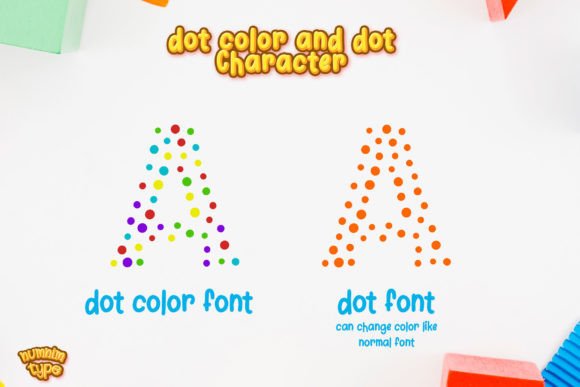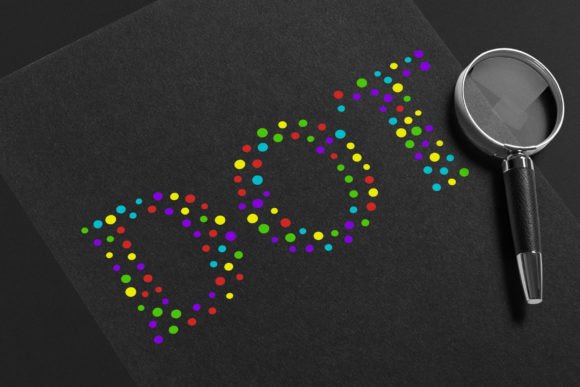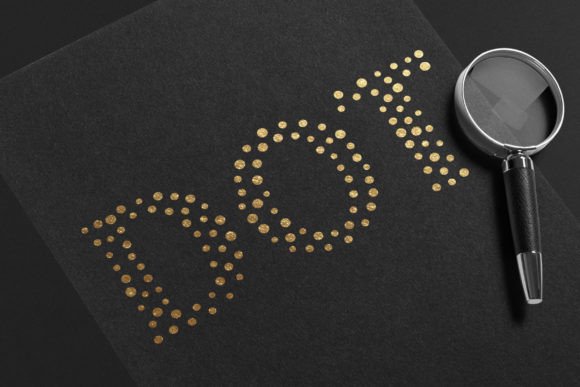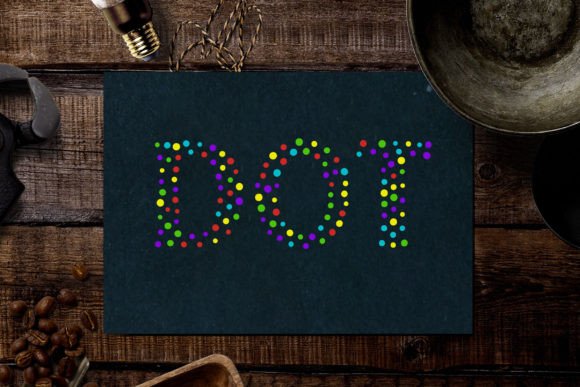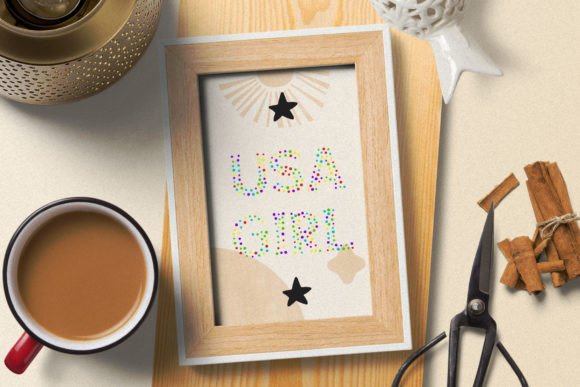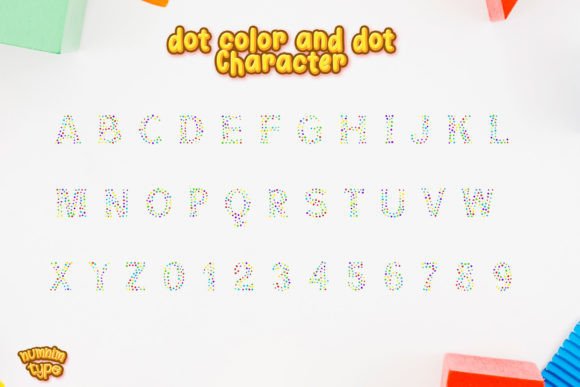
Introducing Dot Font: The Ultimate Decorative Color Font for Crafty Designs
Are you tired of using the same old fonts for your crafty projects? Look no further than Dot Font, a cool and fun decorative color font that’s sure to add a touch of personality to your designs. Featuring characters made entirely out of small circles, Dot Font is the perfect choice for crafty ideas, from letterheads and titles to stationery.
Dot Font is a unique and original color font that features characters composed of small circles. This decorative font is perfect for adding a playful and whimsical touch to your designs. Whether you’re a designer, crafter, or DIY enthusiast, Dot Font is sure to inspire your creativity.
- Unique Design: Each character in Dot Font is made up of small circles, giving it a distinctive and eye-catching look.
- Crafty Ideas: Dot Font is perfect for a wide range of crafty projects, from letterheads and titles to stationery and more.
- Experiment with Colors: Since Dot Font is a color font, feel free to experiment with different colors and combinations to create unique effects.
- Mix and Match: Try pairing Dot Font with other fonts or design elements to create interesting contrasts and visual interest.
- Play with Size: Dot Font looks great in a variety of sizes, from small and delicate to large and bold.
Dot Font is a fun and decorative color font that’s perfect for crafty designs. With its unique circle-based design and compatibility with popular design software, it’s the perfect choice for designers, crafters, and DIY enthusiasts. Whether you’re creating letterheads, titles, stationery, or more, Dot Font is sure to add a touch of personality and whimsy to your designs.